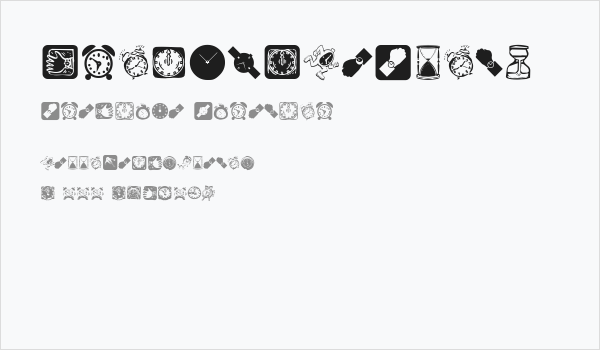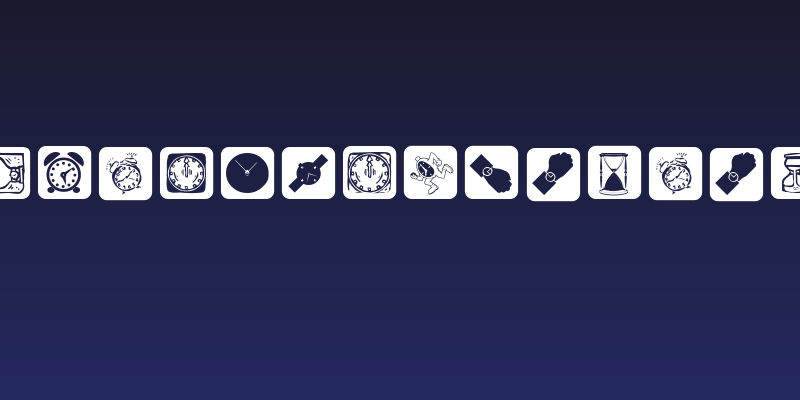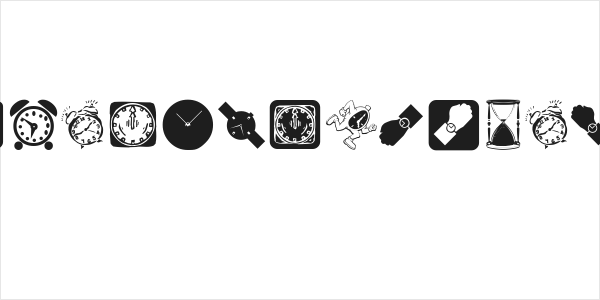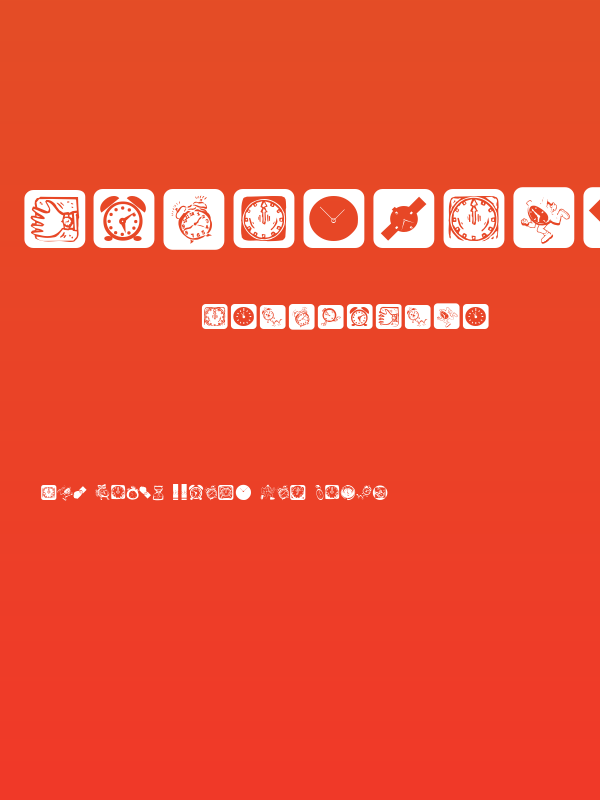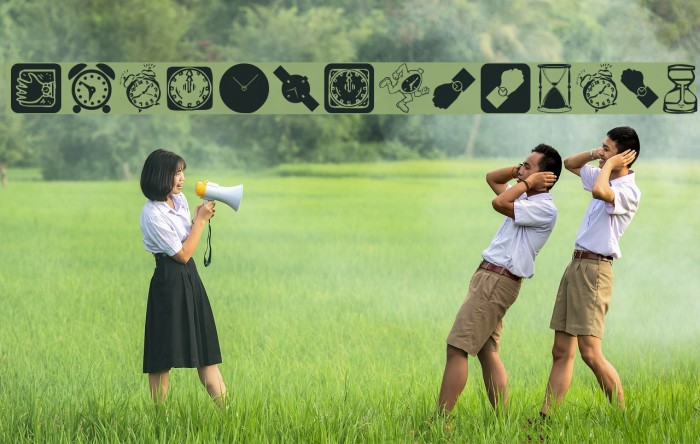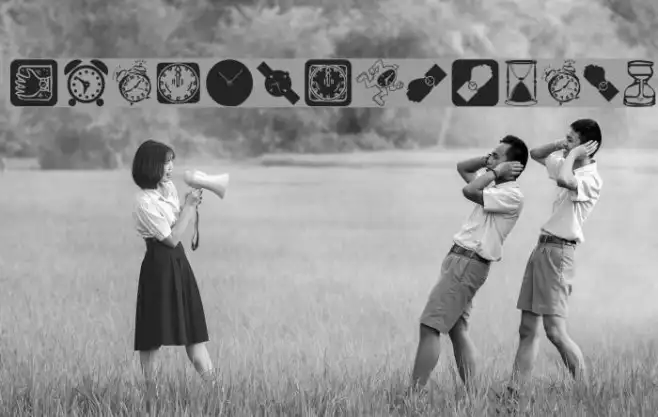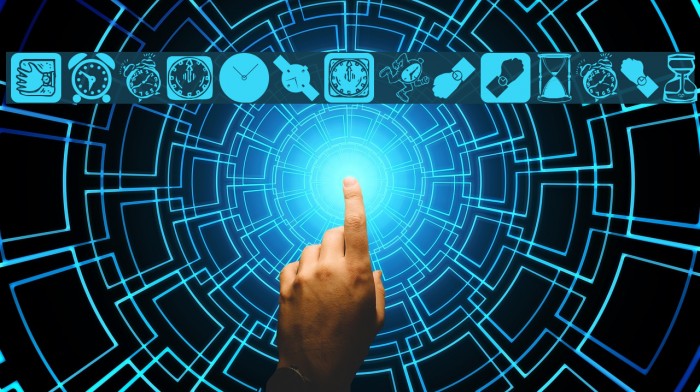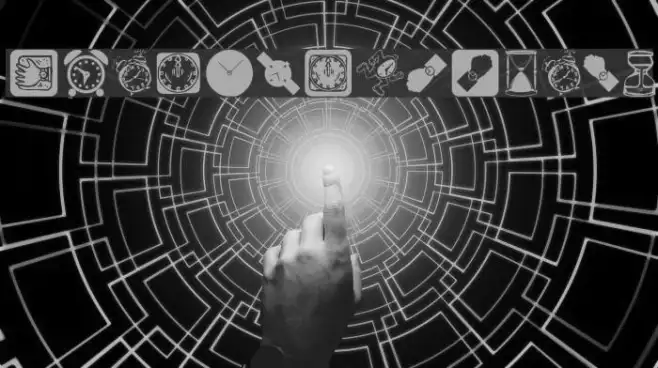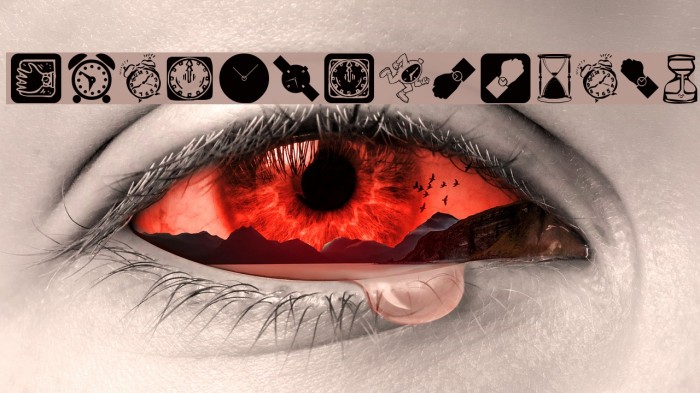
AroundTheClock Font
AroundTheClock Description
A decorative dingbat font featuring a variety of clock, watch, and time-related illustrations, including analog clocks, alarm clocks, wristwatches, hourglasses, and playful cartoon characters interacting with timepieces. Each glyph is a unique pictogram, often enclosed in a square or circular frame, rendered in a bold, high-contrast black-and-white style.
| Overall Style | Decorative, Playful, Cartoonish |
| Use Case | Icons, Decorative elements, Themed graphics |
| Proposed Projects | Children's books, educational materials, themed event invitations, posters, scrapbooking, and decorative timelines. |